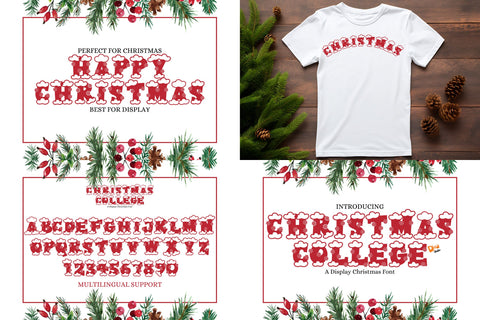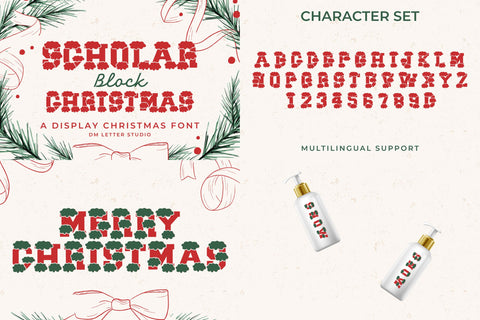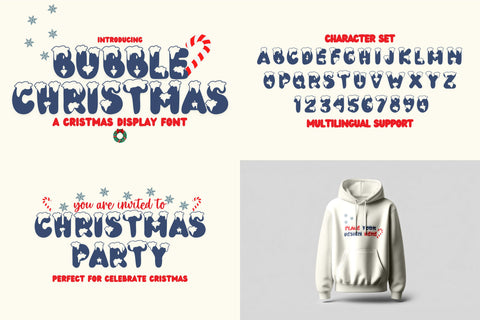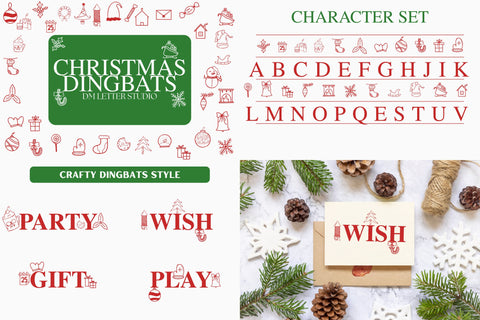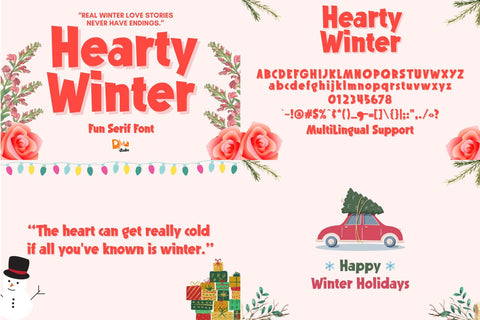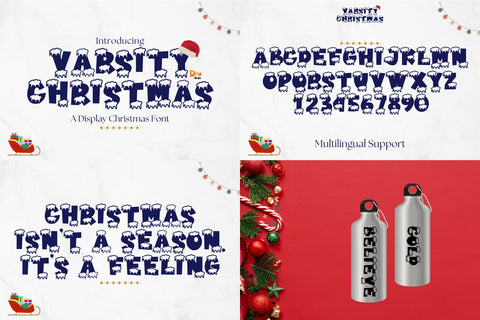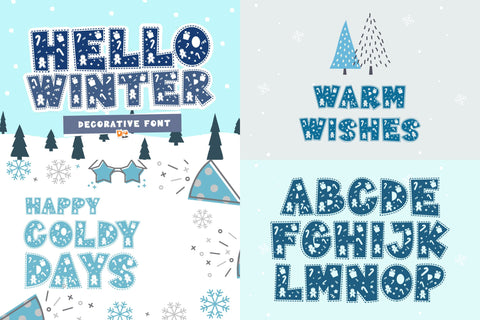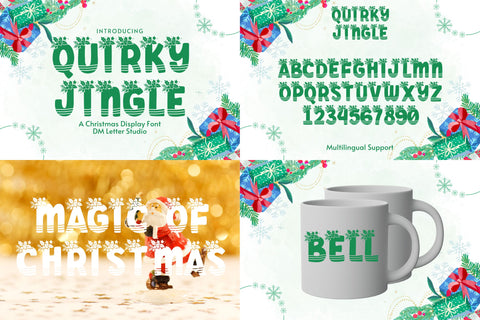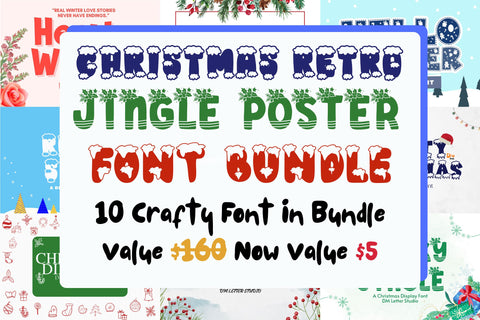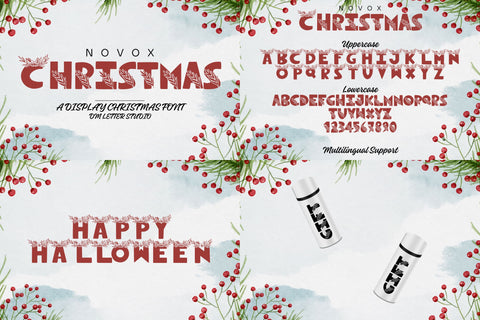
Christmas Retro Jingle Poster Font Bundle
🎄 Christmas Retro Jingle Poster Font Bundle
Celebrate the season with bold style using the Christmas Retro Jingle Poster Font Bundle, a festive collection of 10 high-impact display fonts perfect for holiday-themed posters, signage, packaging, and party invites. Originally valued at $90, you can now grab this seasonal bundle for only $5—a perfect addition to your holiday design toolkit.
Whether you're designing Christmas cards, retail banners, social media graphics, or printable decor, these fonts bring the holiday cheer with retro flair, varsity vibes, bubbly charm, and jingly fun. From playful bubble letters to collegiate block fonts, this bundle blends vintage nostalgia with modern usability.
The collection includes the bold and spirited Scholar Block Christmas, perfect for holiday-themed college-style merchandise. Christmas Dingbats gives you instant access to Christmas icons like snowflakes, trees, ornaments, and stockings—great for Cricut and Silhouette crafts. Novox Christmas, Christmas College, and Varsity Christmas offer that classic American varsity look reimagined for holiday campaigns.
Bring cheerful energy with Bubble Christmas, full of rounded joy and perfect for kids’ projects or playful branding. Quirky Jingle adds personality to your quotes and packaging with its lively curves and retro playfulness. Hello Winter, Hearty Winter, and Retro Snow round out the bundle with stylish letterforms suited for cozy winter branding, gift tags, mugs, apparel, and more.
• Scholar Block Christmas
• Christmas Dingbats
• Novox Christmas
• Christmas College
• Varsity Christmas
• Bubble Christmas
• Quirky Jingle
• Hello Winter
• Hearty Winter
• Retro Snow
• Perfect for posters, greeting cards, mugs, ornaments, signage & branding
• A mix of retro, varsity, bubbly, and cute display styles
• Dingbat font included for icons & symbols